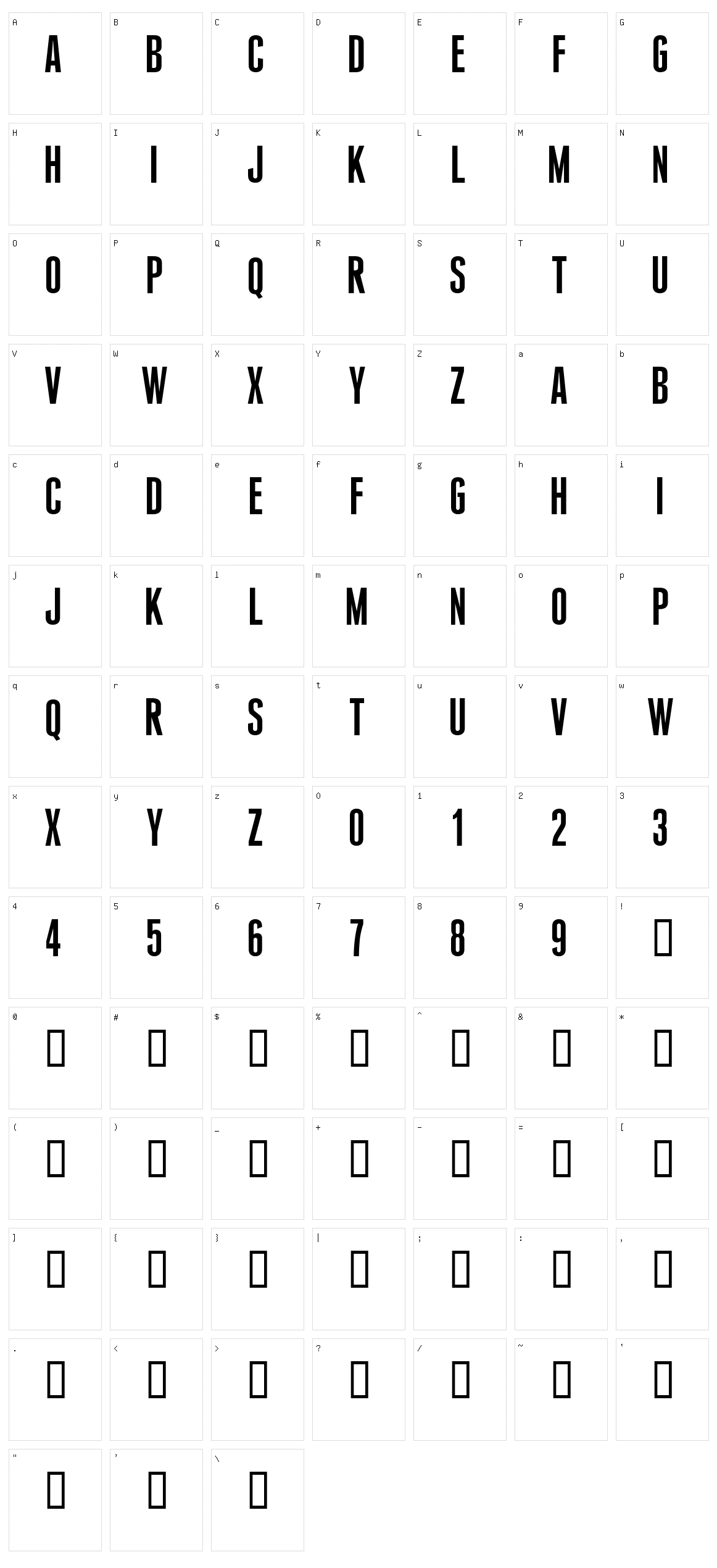
The free font MLB Astros is carefully designed by Eriq Jaffe, showcasing a thoughtful balance of creativity and usability and falls under the Sans serif font style. When you download the ZIP file, it contains only 5.45 KB of font files, making it lightweight and quick to download. Please review the license details below to understand permitted usage and distribution rights. If license information is not available, we recommend using this font for personal projects only or contacting the author directly for commercial usage permissions.